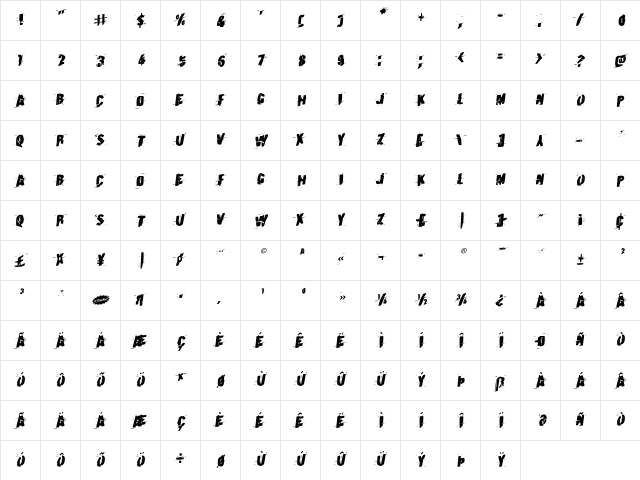
Earthshake Rotalic Regular
Design Context for Earthshake Rotalic Typeface
Earthshake Rotalic is a composed and adaptable typeface that performs quietly and consistently across a wide range of design contexts.
Pro Tip: Pair Earthshake Rotalic with a font of contrasting weight or personality to build a more expressive typographic hierarchy.